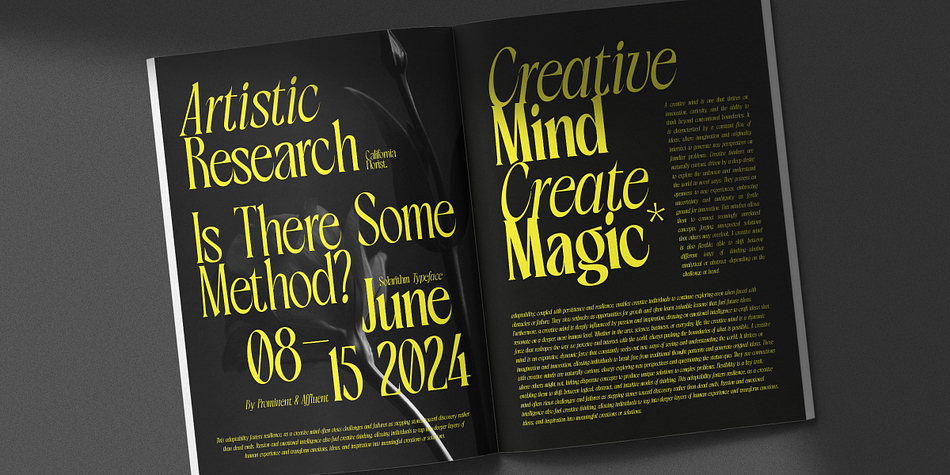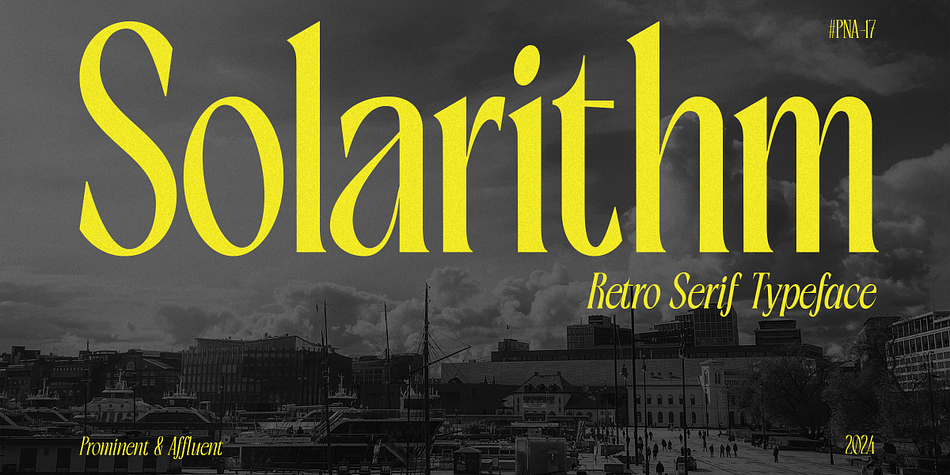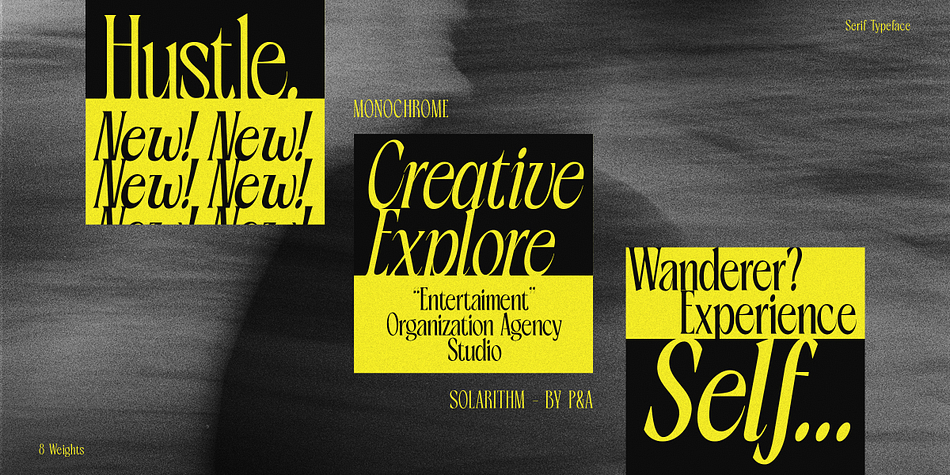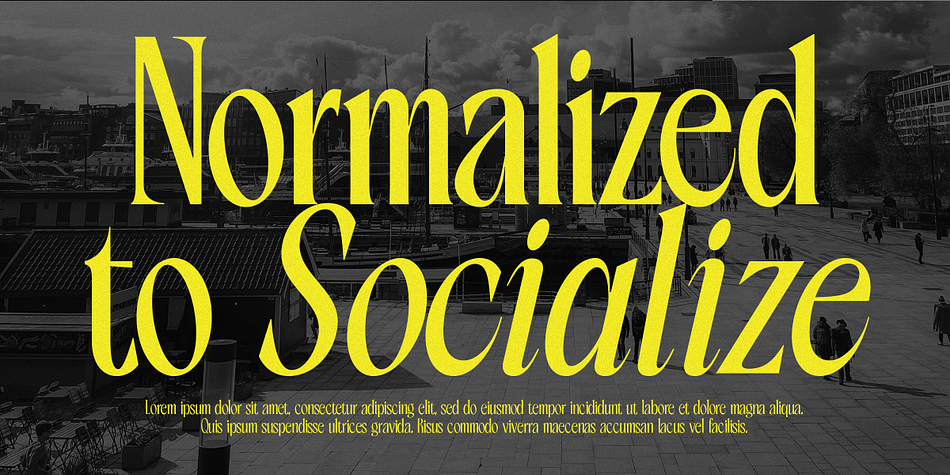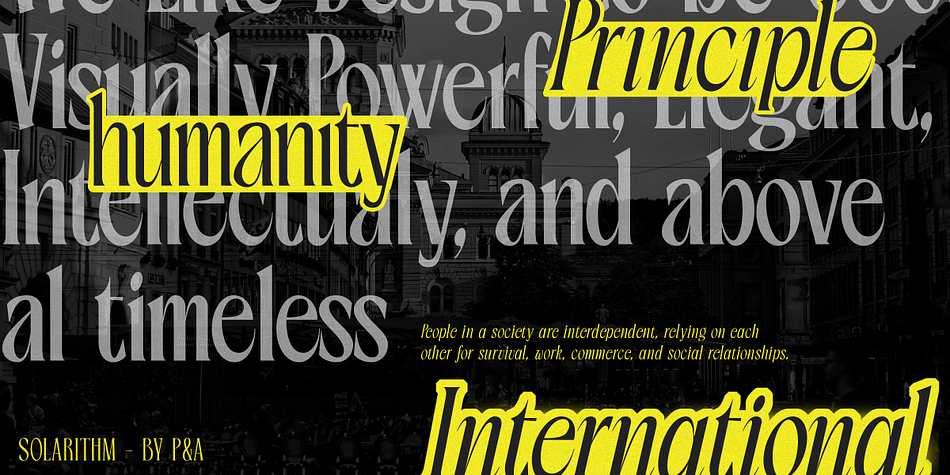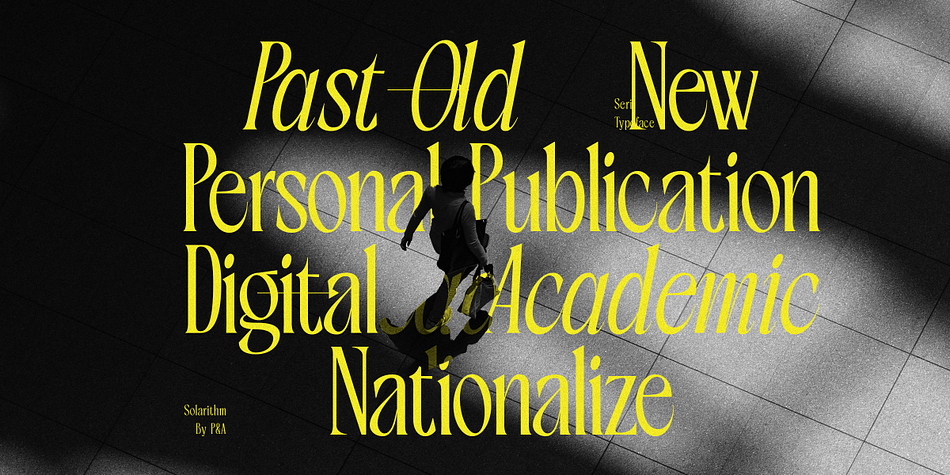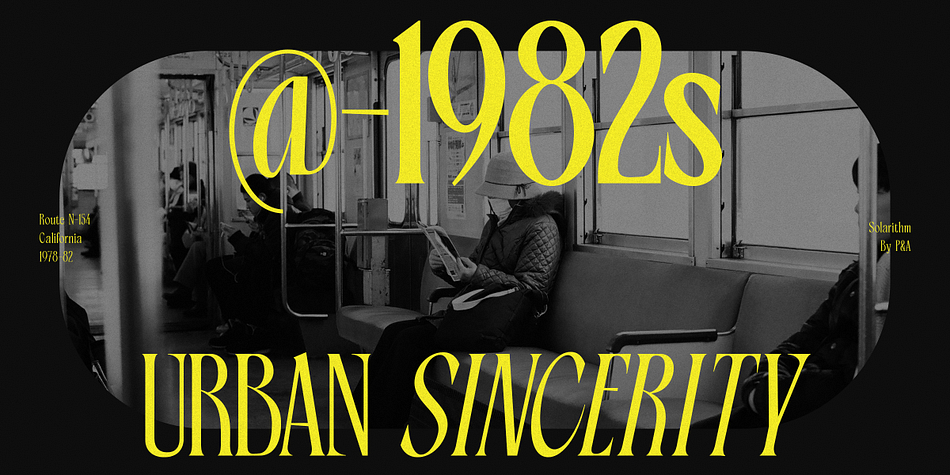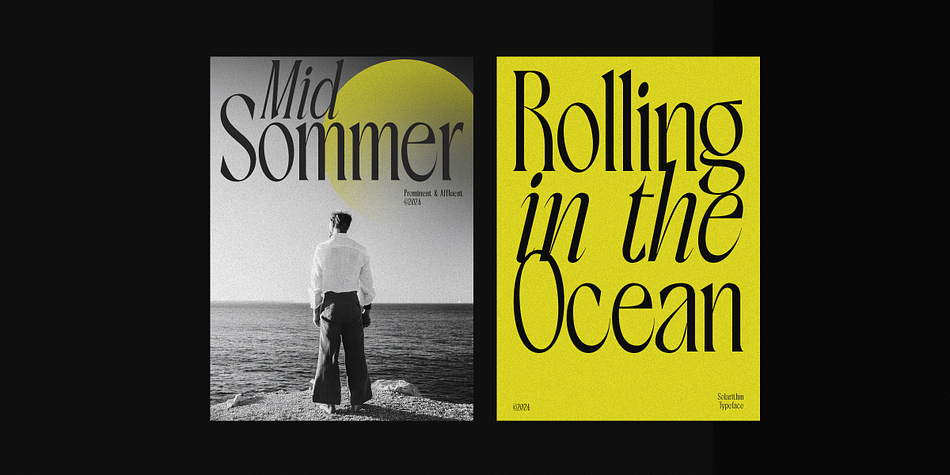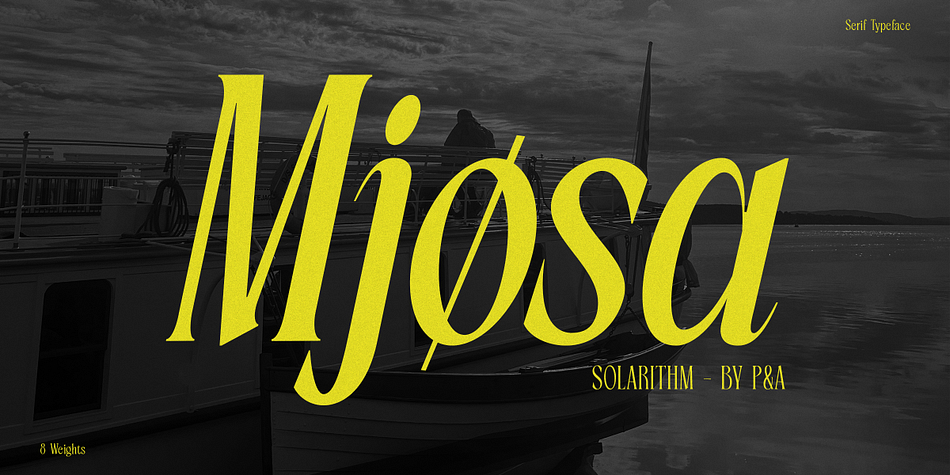
Solarithm
Solarithm is a serif font family. This typeface has eighteen styles and was published by Prominent & Affluent.
Solarithm is a sophisticated serif font family inspired by the timeless beauty of vintage posters and magazine covers. With 9 distinct weights, each paired with its italic style, Solarithm offers versatility whether you’re crafting bold headlines or clear, readable body text. Its modern serif style seamlessly bridges classic and contemporary, making it perfect for everything from posters to digital content. Elevate your designs with Solarithm—a font that speaks both to the past and the future.